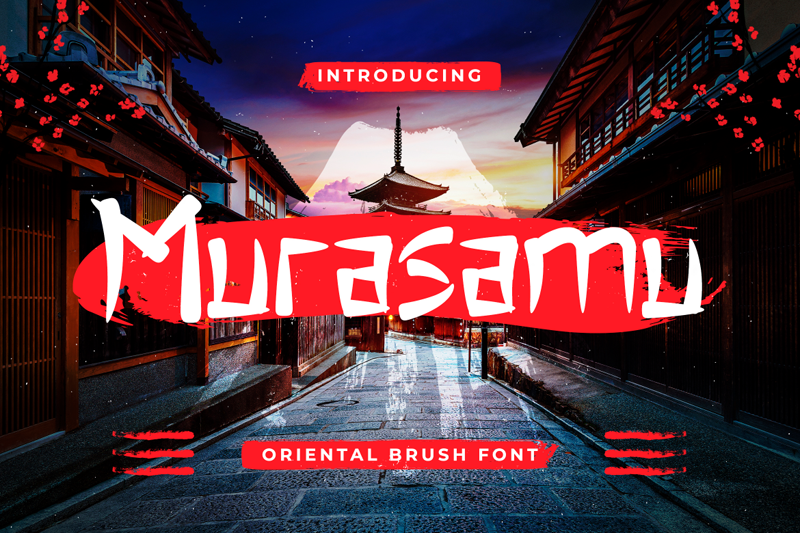
Murasamu is an awesome oriental brush font. It has a great readability and will add a striking touch to any design! It will look awesome on any T-shirt, print, or restaurant brand! Full Version Download Here : https://typefactory.co/product/murasamu-oriental-brush-font/ https://www.creativefabrica.com/product/murasamu/ref/501262/ |